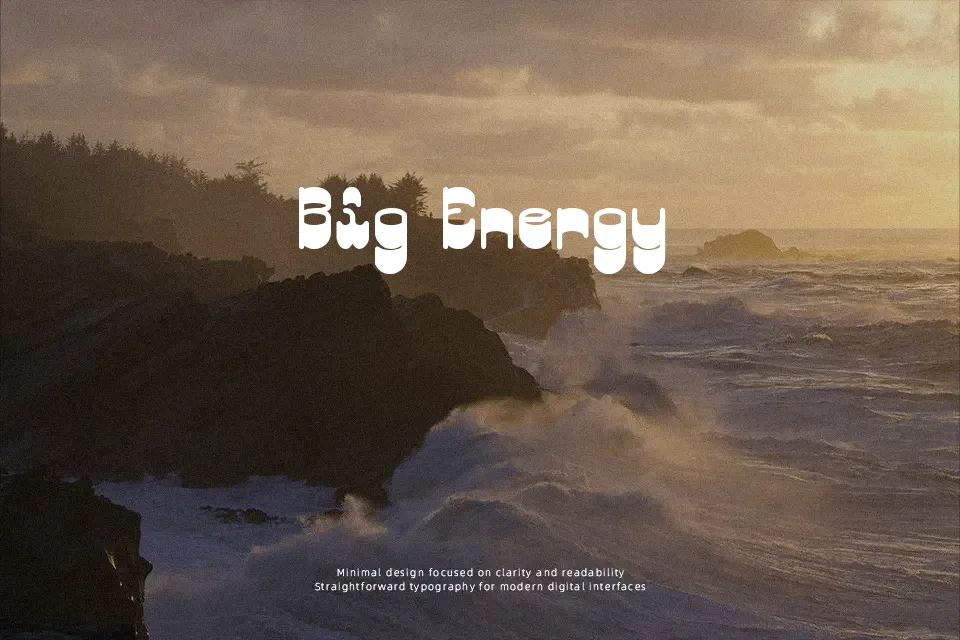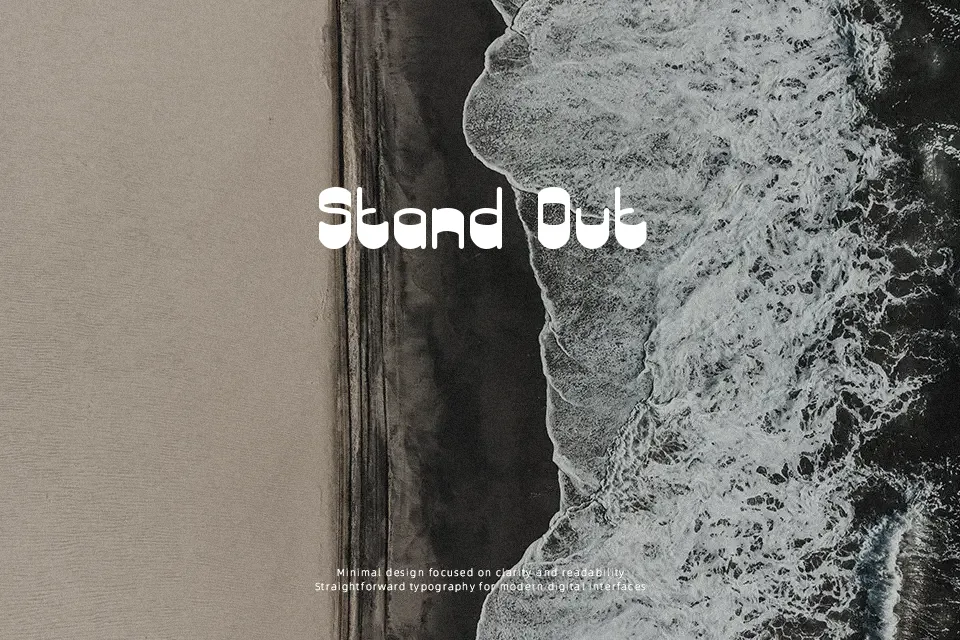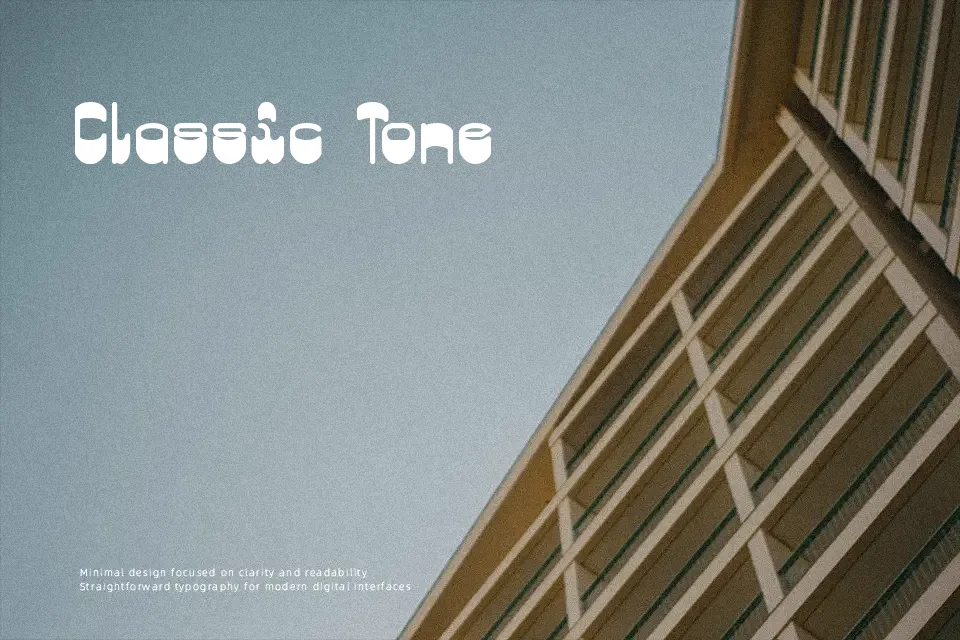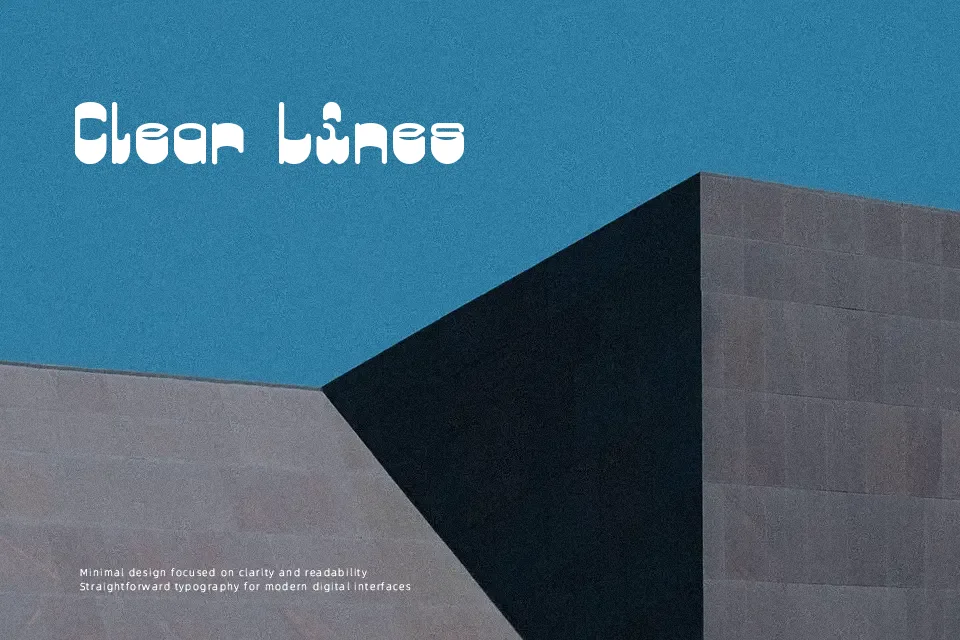
Singing Bird Font
Singing Bird Font introduces an energetic display style characterized by heavy stroke weights, rounded terminal shapes, and expressive proportions across its character set. The letterforms feature generous widths and balanced spacing that ensure clear distinction in prominent headlines, merchandise graphics, and creative poster layouts. Smooth contours and low stroke contrast give each glyph a cheerful presence that thrives in artistic titling and packaging projects. However, the decorative weight and stylized silhouettes make continuous reading difficult across dense paragraphs or small editorial columns. The bold structural design delivers dependable visual impact when applied sparingly in spacious, high-contrast headline environments.
– Retro poster headlines
– Merchandise graphics
– Casual product packaging
– Event banner titling
– Continuous paragraph text
– Small mobile interface labels
– Formal business documents
– Dense spreadsheet data
Perfect for advertising, headline, and logo, with a bold and decorative style.